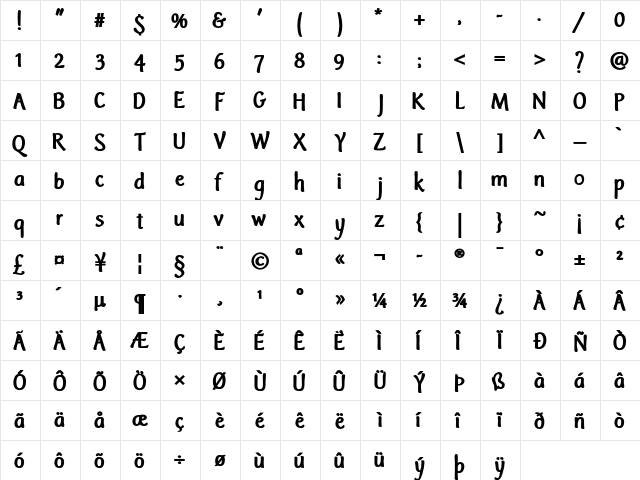
IJF0100 Bold Font Preview
IJF0100 Bold
IJF0100 Bold Font Details
| Designer | J. |
Design Context for IJF0100 Typeface
IJF0100 offers clean, dependable letterforms without strong stylistic allegiance, making it a practical choice for designers who need flexibility. Its bold stroke weight gives it real presence on the page.
Pro Tip: Pair IJF0100 with a font of contrasting weight or personality to build a more expressive typographic hierarchy.